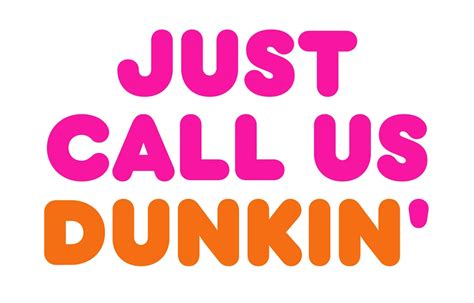
Dunkin Donuts Font Generator. Web dunkin is a bold, smooth font based loosely on the popular logo of the “dunkin’ donuts” restaurant franchise. Web use the text generator below to convert your text into graphics online with dunkin’ donuts font, you can then save the image or click on the embed button to get links to embed the image on the web.
Web dunkin donuts font generator. Enter your text, select a font, choose a font size, and pick your favorite colors. Web dunkin is a bold, smooth font based loosely on the popular logo of the “dunkin’ donuts” restaurant franchise. Web dunkin is a bold, smooth font based loosely on the popular logo of the “dunkin’ donuts” restaurant franchise. Web dunkin donuts font generator. Dunkin donuts logo font license: Includes full alphabet, lower case, accents, and euro. Web this font is free for personal use. Includes full alphabet, lower case, accents, and euro. 7 million+ fonts & design. Web use the text generator below to convert your text into graphics online with dunkin’ donuts font, you can then save the image or click on the embed button to get links to embed the image on the web.